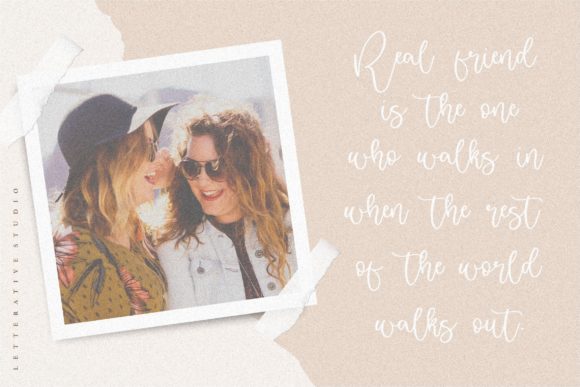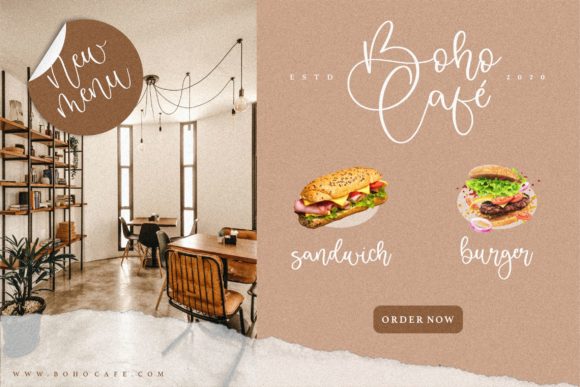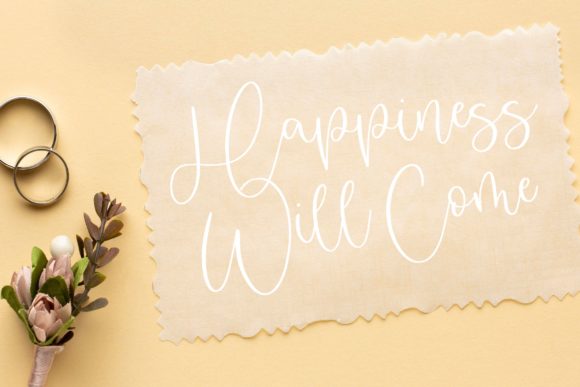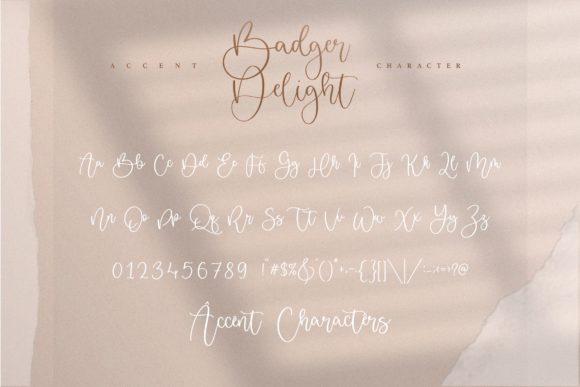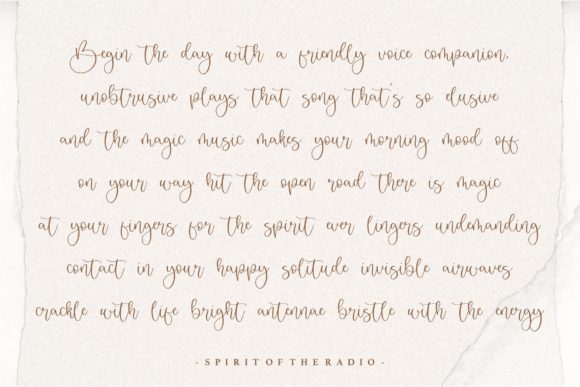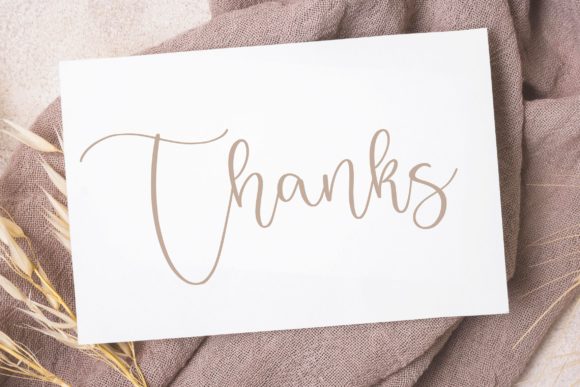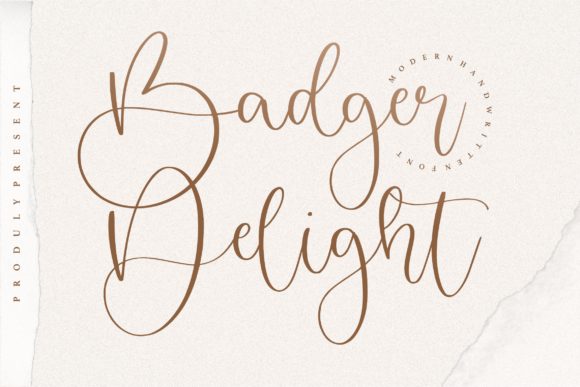
Introducing Badger Delight Font: The Perfect Handwritten Touch for Your Designs
Are you a designer or crafter looking for a beautiful, unique font to add a personal touch to your creations? Look no further than Badger Delight Font! This gorgeous, round lettered handwritten font is perfect for a variety of design projects, from wedding invitations and thank you cards to quotes, greeting cards, logos, and business cards.
What Makes Badger Delight Font So Special?
Badger Delight Font is a one-of-a-kind, handcrafted font that exudes warmth and personality. Its rounded letters and fluid script make it perfect for designs that require a touch of elegance and sophistication. Whether you’re creating a romantic wedding invitation or a heartfelt thank you card, Badger Delight Font is sure to make your design stand out.
Perfect for Wedding and Event Design
Wedding designers and event planners, rejoice! Badger Delight Font is the perfect choice for creating stunning wedding invitations, save-the-dates, and other event materials. Its elegant script and romantic feel make it ideal for tying together your wedding or event theme. Use it to create beautiful stationery, signage, and even social media graphics to promote your special day.
Add a Personal Touch to Your Designs
Badger Delight Font is more than just a font – it’s a way to add a personal touch to your designs. Its handwritten feel makes it perfect for creating unique and personalized designs that speak to your audience. Use it to create heartfelt quotes, beautiful greeting cards, and even custom logos that reflect your brand’s personality.
Why Designers and Crafters Love Badger Delight Font
Designers and crafters love Badger Delight Font for its versatility and ease of use. Whether you’re a seasoned pro or just starting out, this font is easy to work with and can be used in a variety of design projects. Here are just a few reasons why designers and crafters love Badger Delight Font:
- Unique and eye-catching: Badger Delight Font is a one-of-a-kind font that adds a touch of personality to any design.
- Elegant and sophisticated: Its rounded letters and fluid script make it perfect for designs that require a touch of elegance and sophistication.
- Versatile: Use Badger Delight Font in a variety of design projects, from wedding invitations to logos and business cards.
Tips for Using Badger Delight Font
Here are a few tips for getting the most out of Badger Delight Font:
- Pair it with a simple background: Let Badger Delight Font be the star of the show by pairing it with a simple background that won’t compete with the font.
- Experiment with colors: Try out different colors to find the perfect match for your design. Badger Delight Font looks beautiful in a variety of colors, from soft pastels to rich jewel tones.
- Use it sparingly: While Badger Delight Font is beautiful, it can be overwhelming if used too much. Use it sparingly to add a touch of elegance and sophistication to your design.
Badger Delight Font is a gorgeous, round lettered handwritten font that’s perfect for designers and crafters looking to add a personal touch to their designs. Its elegant script and romantic feel make it ideal for wedding invitations, thank you cards, quotes, greeting cards, logos, and business cards. With its ease of use and versatility, Badger Delight Font is sure to become a favorite in your design toolkit.